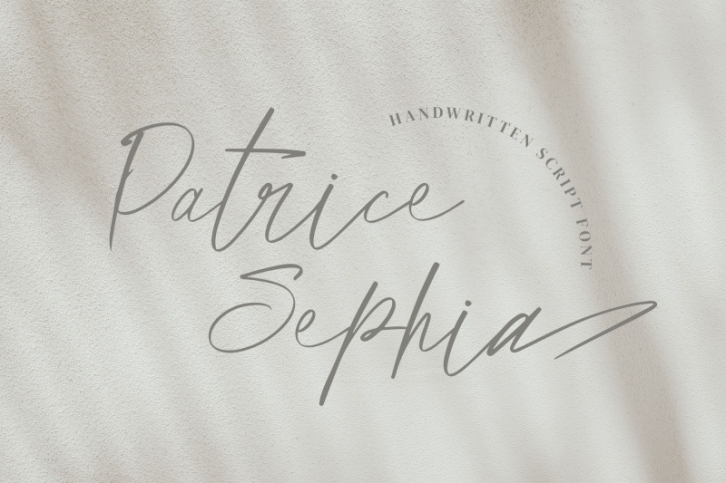
Patrice Sephia - Script Font Download
Patrice Sephia is a beautiful script font with an elegant and feminine style. Is a font style that is made with scratches and curvature shapes font characters are very beautiful. Can be applied to support the graphic appearance of the product to be more attractive and unique. This font is suitable for making previews and covers, wedding invitations, logo designs, shirt designs, and other feminine graphic needs.
• Ligature
• Stylistic Alternate
• Swashes